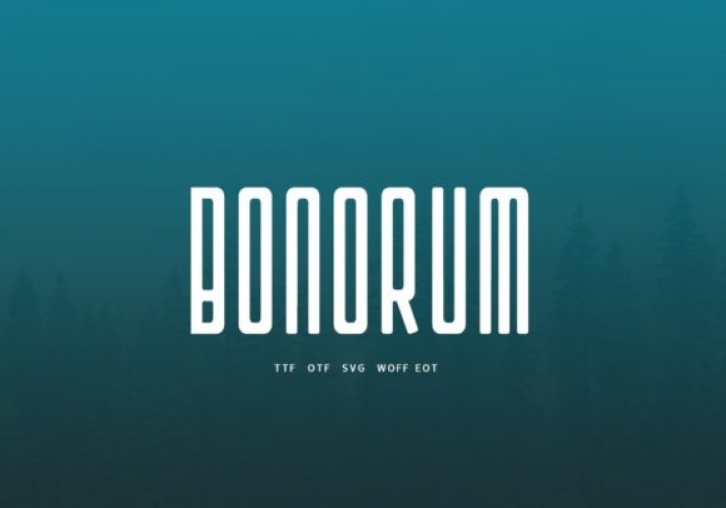
Bonorum is a minimalist display font. Its natural and unique style makes it incredibly fitting for a large pool of designs. The only limit is your imagination!